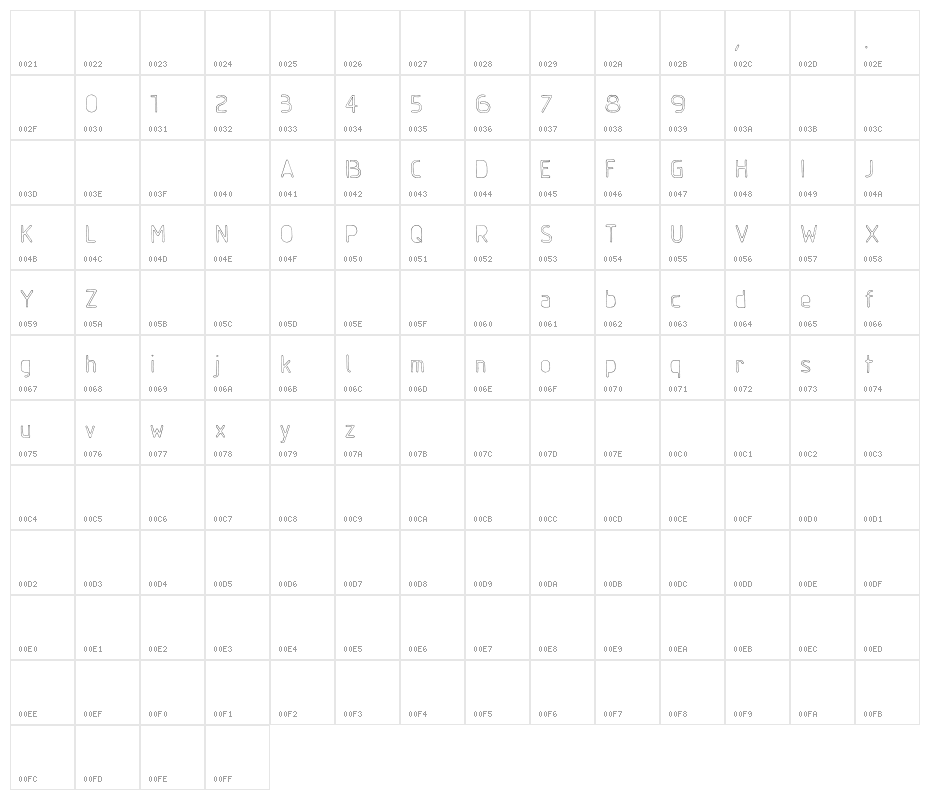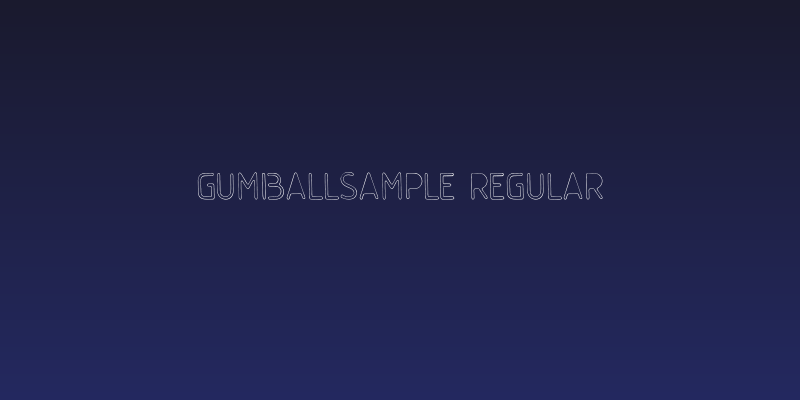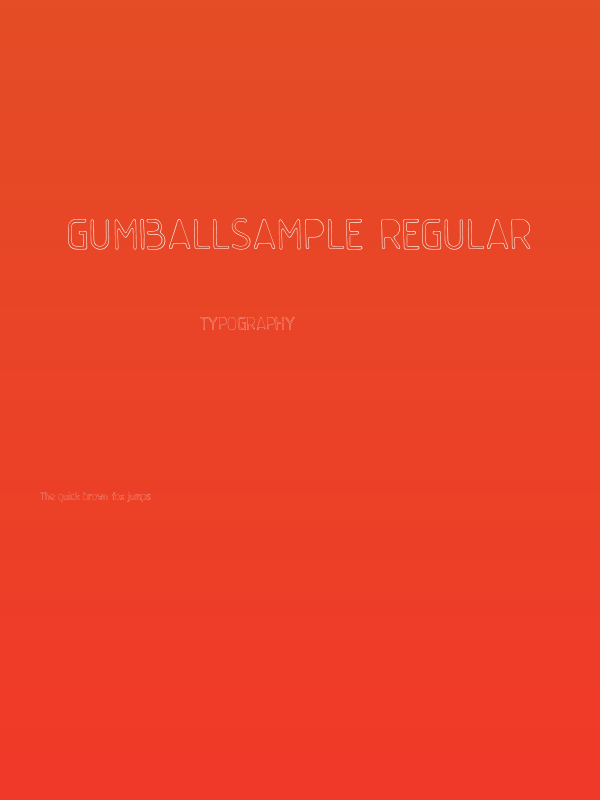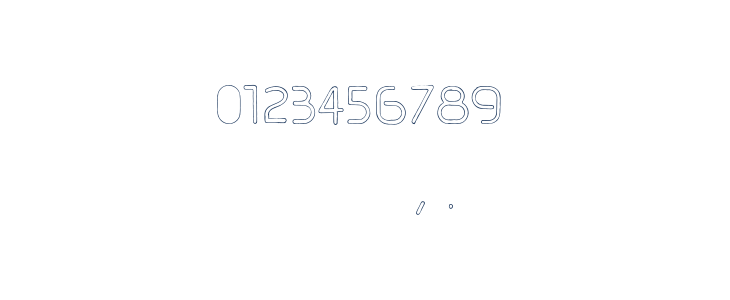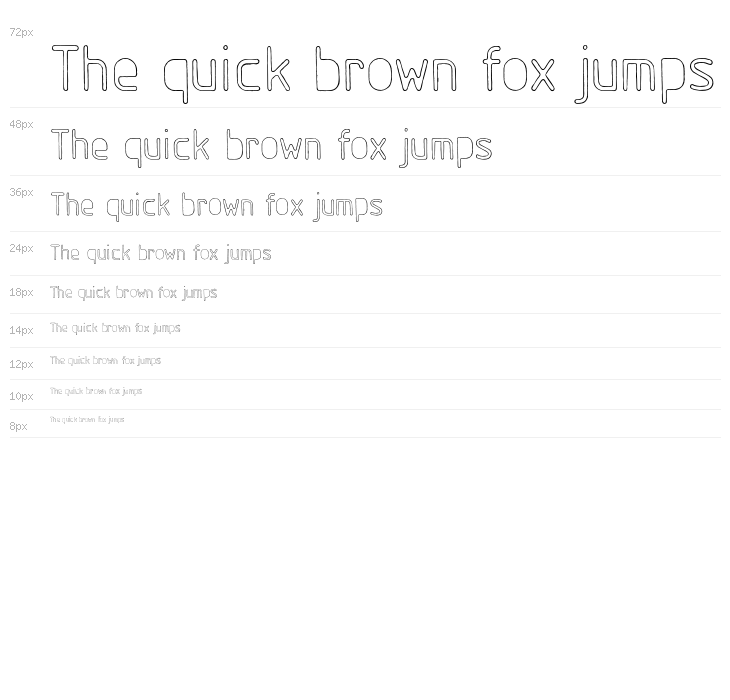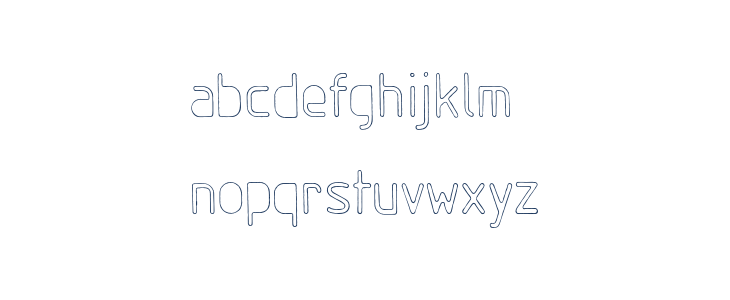
GumballSample-Regular Font
GumballSample-Regular Description
This font features a playful and rounded design with a hollow, outlined style that gives it a unique and modern appearance. The characters are evenly spaced, with a consistent stroke width that maintains a clean and approachable look. The uppercase and lowercase letters share a similar structure, enhancing readability while maintaining a distinct personality. The numbers and special characters follow the same design principles, ensuring uniformity across all elements. This font is ideal for projects that require a fun and engaging aesthetic, such as children's books, playful branding, or creative posters.